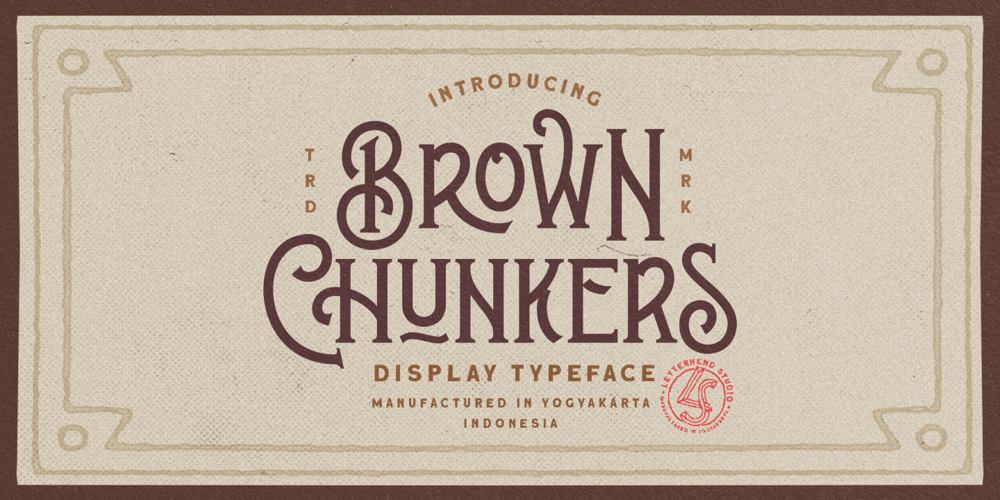
Brown Chunkers Font Family was designed by Hendry Juanda and published by Letterhend. Brown Chunkers contains 1 styles and family package options. Brown Chunkers is an unique serif based display typeface containing many alternates, swashes, ligatures that can make your lettering/logotype become more interesting. The clean and neat of a serif combined with the swirl swashes makes this font one of a kind.